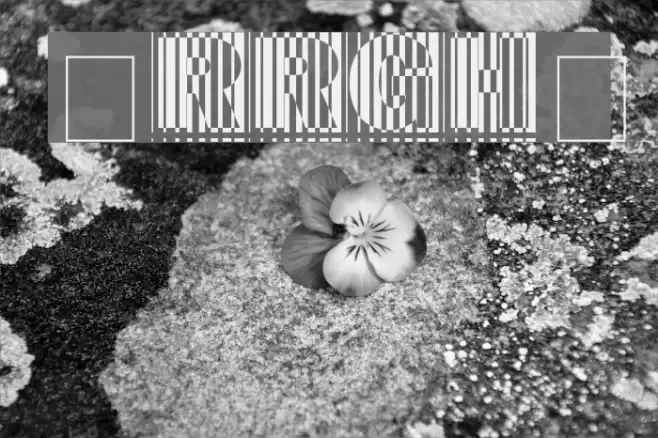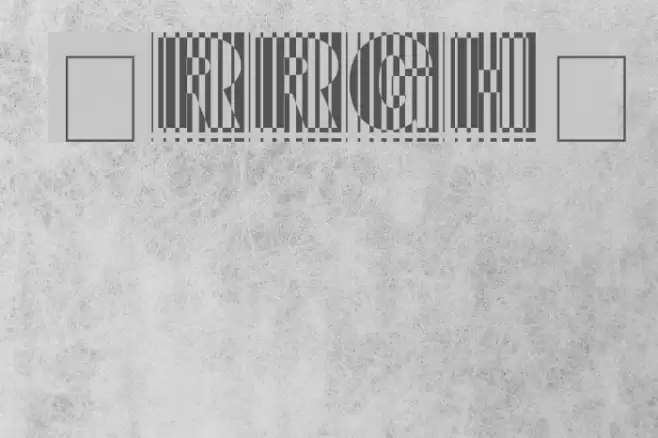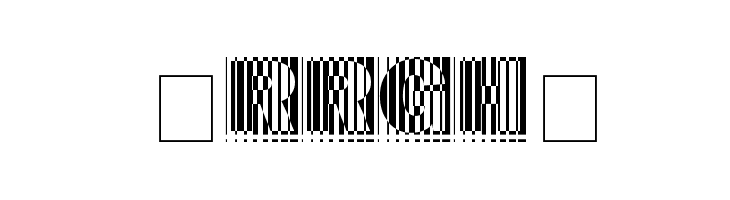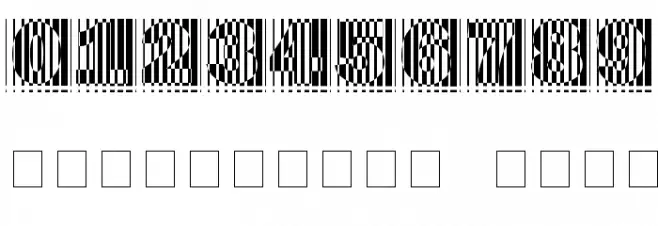
Arrgh! Font
Arrgh! Description
This font is a barcode style, characterized by its vertical lines and varying thicknesses that mimic the appearance of a traditional barcode. Each character is represented by a unique pattern of bars, making it highly distinctive and decorative. The font is not designed for readability in the traditional sense but rather for artistic or thematic purposes, such as creating a futuristic or industrial look. Its unique style makes it suitable for projects that require a bold statement or a modern, tech-inspired aesthetic.
A barcode-inspired decorative font with vertical line patterns from Images & Symbols fonts.
- Proposed Projects: Ideal for futuristic designs, tech-themed posters, or branding that requires a modern and industrial look.
- Overall Style: Modern, Industrial
- Use Case: Logos, Posters, Thematic Designs